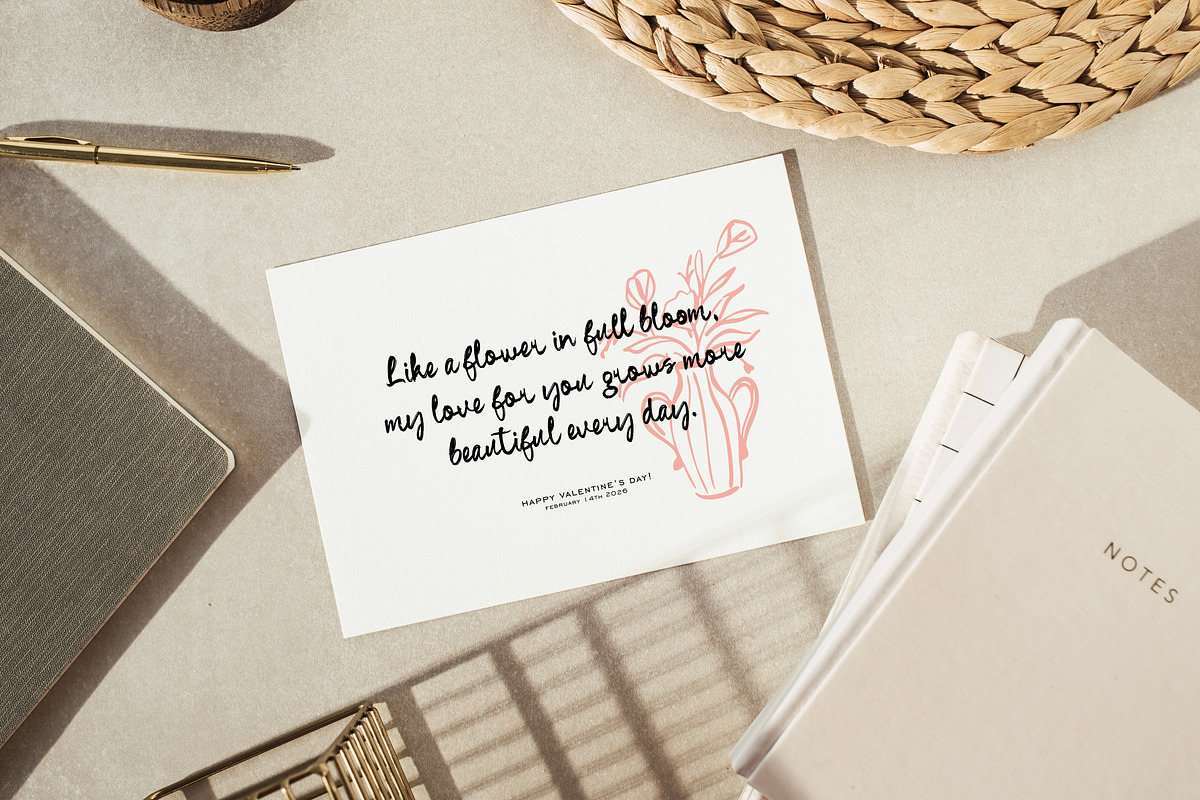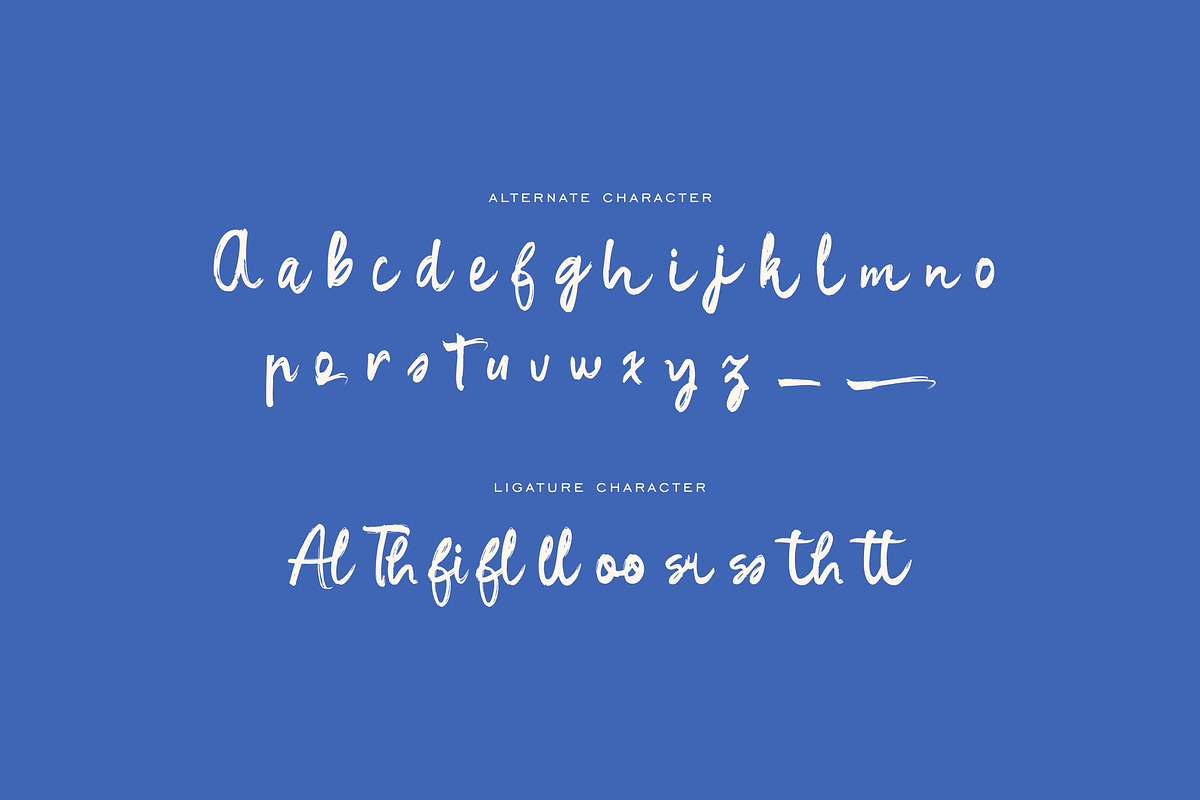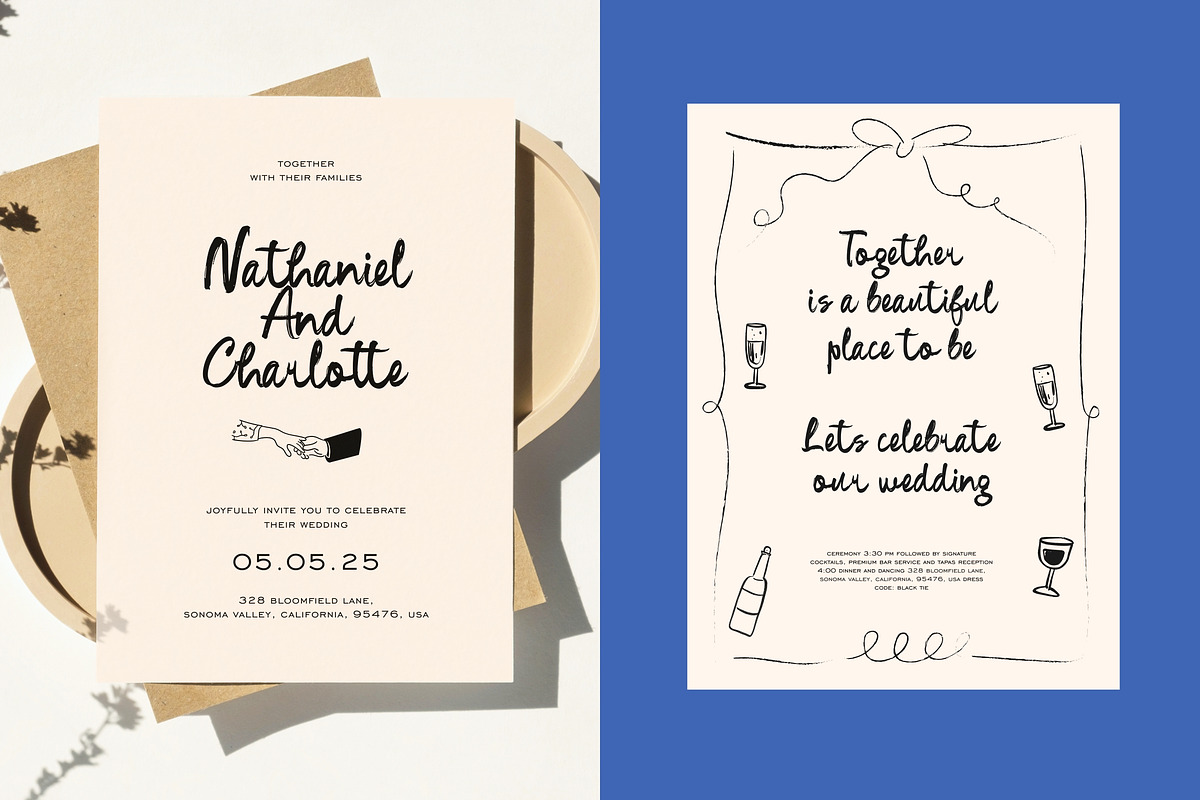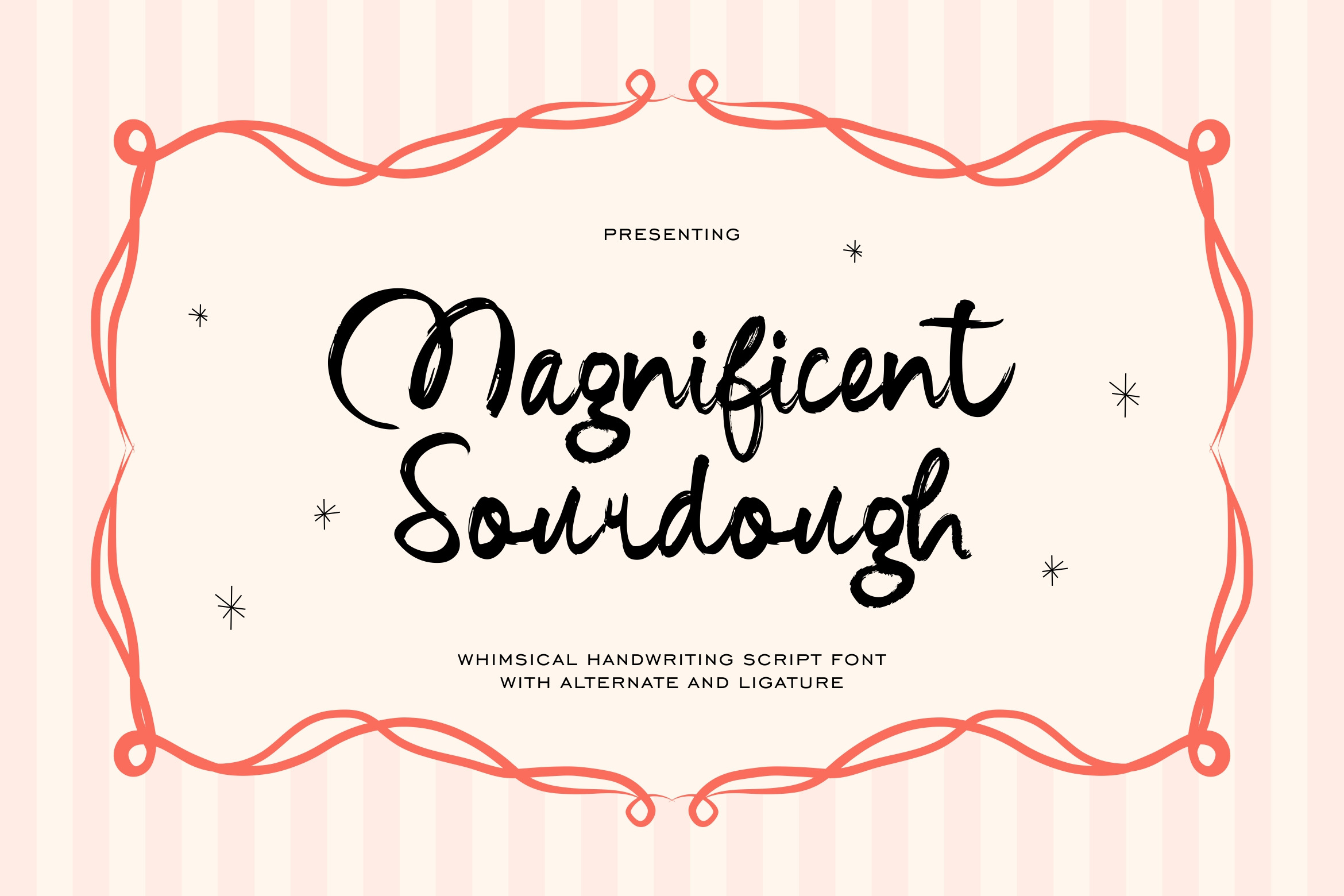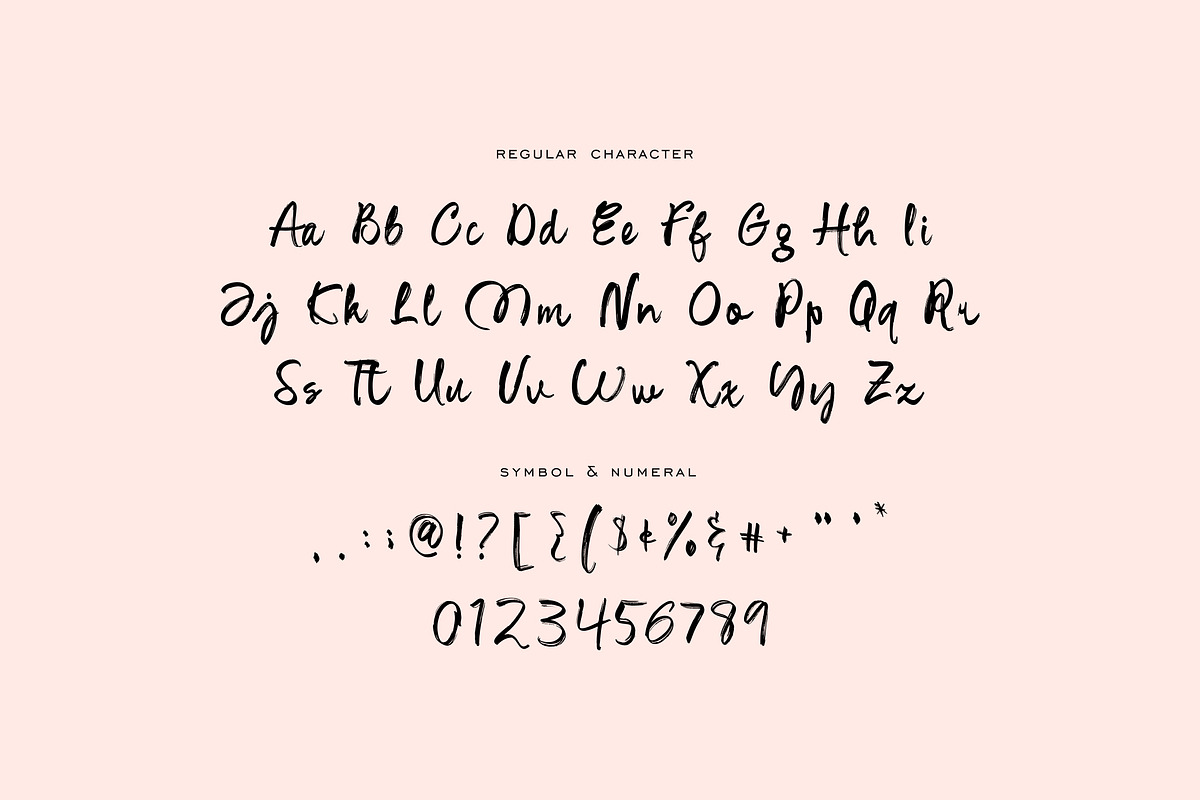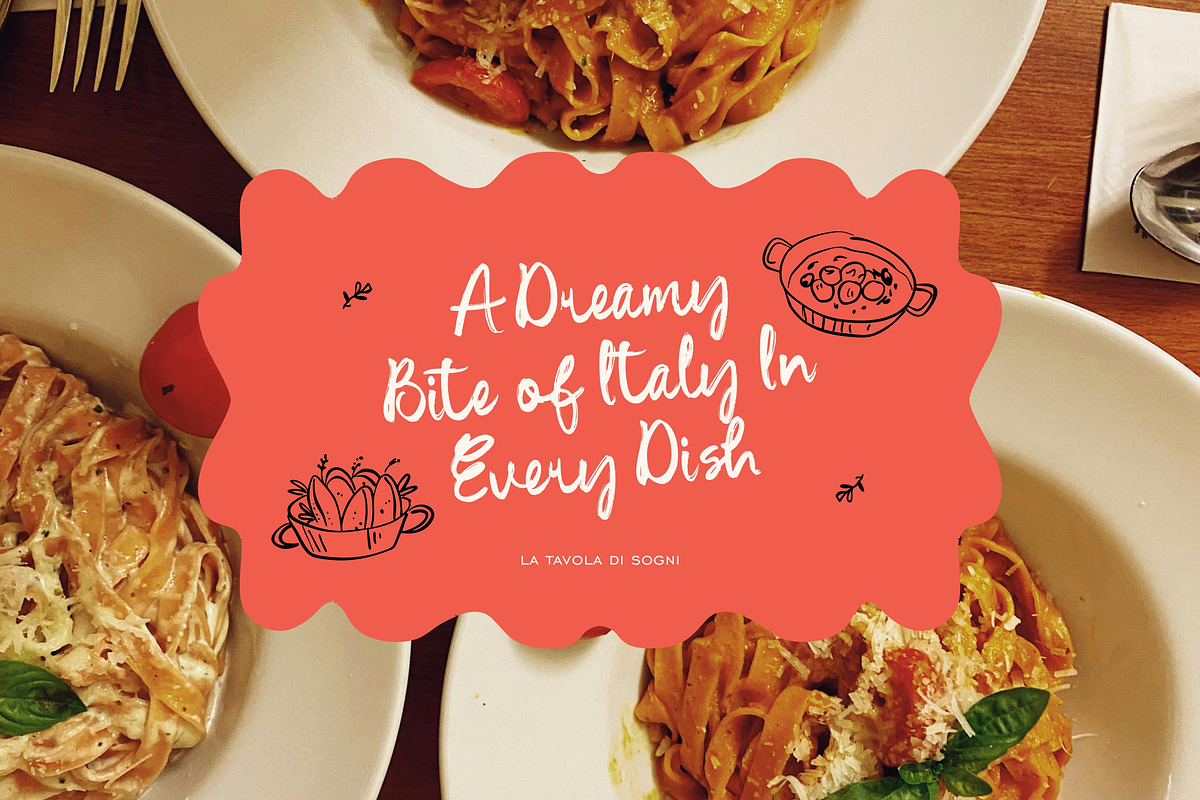
Magnificent Handwriting Script Font
Say hello to Magnificent Sourdough, a delightfully charming and rustic whimsical script font that feels like a warm hug. This font was crafted to capture the authentic, slightly imperfect look of natural handwriting with a brush pen, making it perfect for projects that need a personal and handcrafted touch.
Its letterforms are bouncy and full of life, with a flowing rhythm that is both playful and elegant. The subtle texture within the strokes gives it an organic quality, as if it were written directly onto the page.
Magnificent Sourdough is incredibly versatile. It's the perfect choice for branding that feels approachable and authentic, heartfelt wedding invitations, eye catching social media quotes, cozy cafe menus, and beautiful greeting cards for occasions like valentine's day, mother's day, and baby showers. Its light and cheerful vibe also makes it a wonderful fit for spring and summer themed projects. Add a touch of whimsical warmth to your next project!
Uppercase and Lowecase Characters.
Numerals and Punctuations.
Alternates and Ligatures.
Multilingual Support.